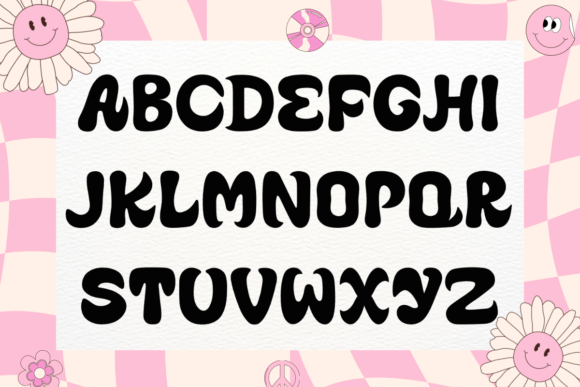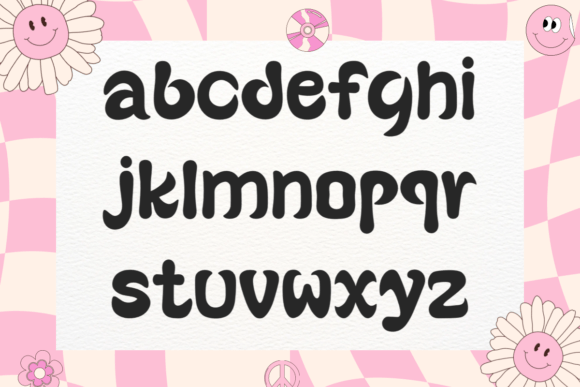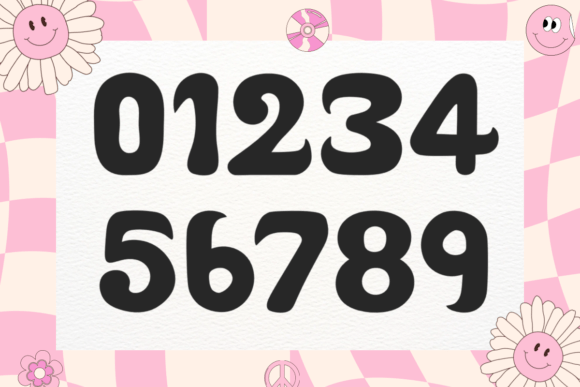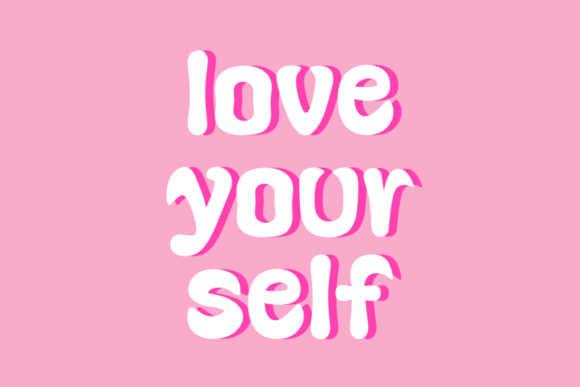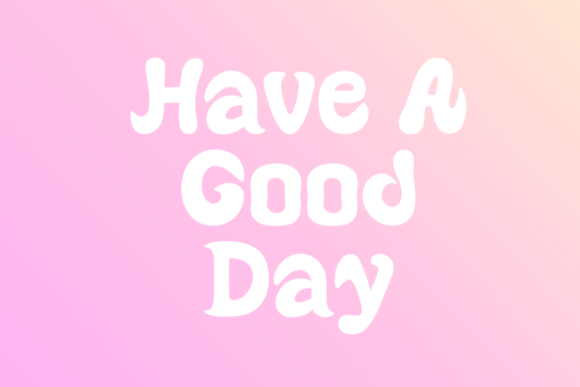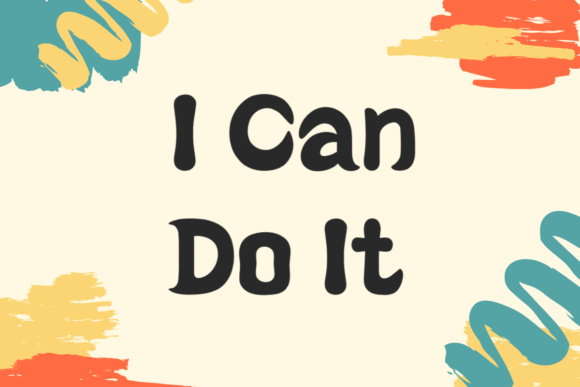
The Funky Font: A Retro Revival for Your Designs
I’ll never forget the time I was working on a vintage-themed wedding invitation project, and I just couldn’t find the right font to capture that nostalgic feel. My client wanted something that would transport their guests back to the 1950s, but I was stuck in a design rut. That’s when I stumbled upon the Funky font, and it was love at first sight! 💕
With its cool, vintage-style display, Funky instantly added a retro touch to my design, and my client was thrilled. Since then, I’ve been using Funky for all sorts of projects, from logos and branding to social media posts and stationery. In this article, I’ll share my experience with Funky, including what I love about it, some quirks to watch out for, and how to get the most out of this amazing font.
An Honest Review of Funky Font
What I Love About Funky Font
- ✨ Unique, hand-crafted feel that’s perfect for adding a personal touch to your designs
- 🎉 Extensive character set, including glyphs and stylistic alternates
- 👍 Great for headlines, titles, and short paragraphs
While Funky is an amazing font, there are a few things to keep in mind:
- 🤔 May not be the best choice for body text or long paragraphs, as it can be a bit ornate
- ⚠️ Some characters, like the lowercase “q” and “x”, can be a bit tricky to read
The Backstory of Funky Font
Funky was designed by a team of creatives who wanted to capture the essence of retro style in a modern font. Inspired by vintage posters, advertisements, and signage, Funky is a true original that’s perfect for adding a touch of nostalgia to your designs.
Q: Is Funky suitable for body text?
A: While Funky is a beautiful font, it’s best suited for headlines, titles, and short paragraphs. For body text, you may want to choose a more traditional font.
Q: Does Funky have any special features?
A: Yes, Funky has an extensive character set, including glyphs and stylistic alternates. You can access these features in compatible design software.